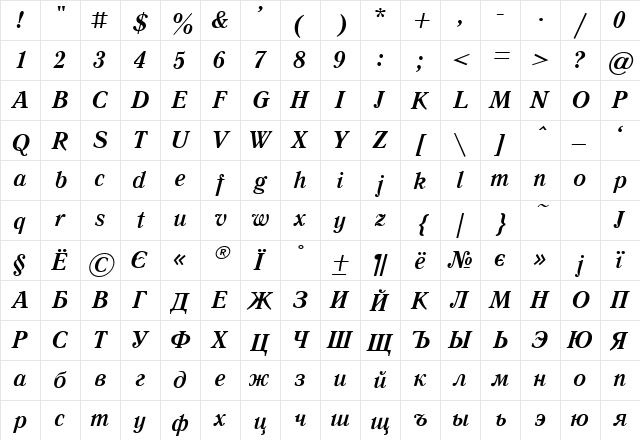
LiteraturnayaC BoldItalic
Design Context for LiteraturnayaC Typeface
LiteraturnayaC offers clean, dependable letterforms without strong stylistic allegiance, making it a practical choice for designers who need flexibility. Its italic angle brings a sense of urgency and motion to the letterforms. The heavy weight commands attention and anchors typographic hierarchies.
Pro Tip: Use LiteraturnayaC for emphasis, pull quotes, and subheadings where its slanted energy can add rhythm to the layout.